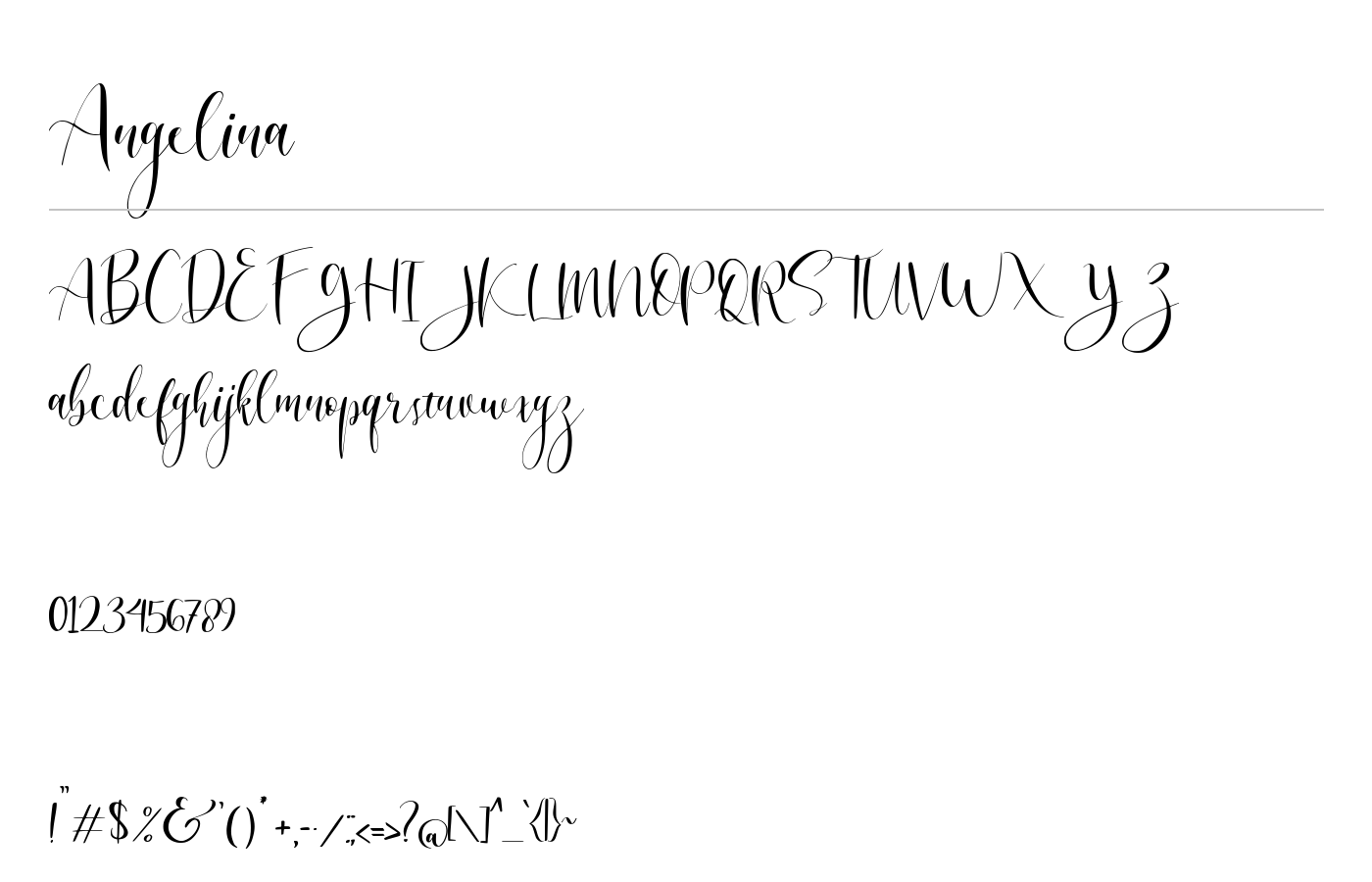
Angelina is a delicate, elegant script font with slender, flowing strokes that evoke a graceful, hand-lettered style. Its high-contrast thin lines and charming swashes make it perfect for sophisticated invitations, fashion branding, and feminine logos where a refined and artistic touch is desired. This font shines in decorative uses where elegance and style are the main focus.
Angelina Font
About Angelina Font
| Font family | Angelina Font |